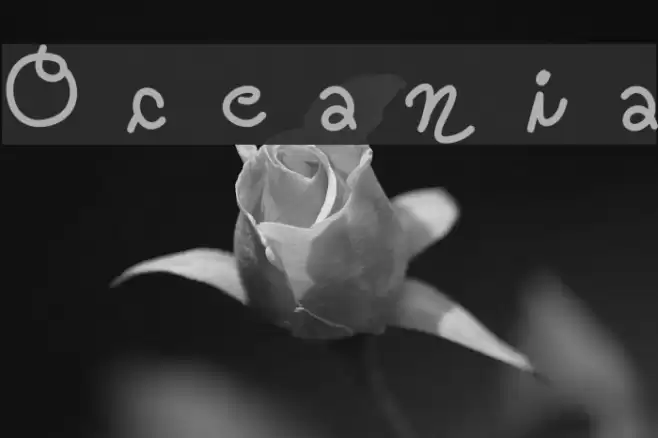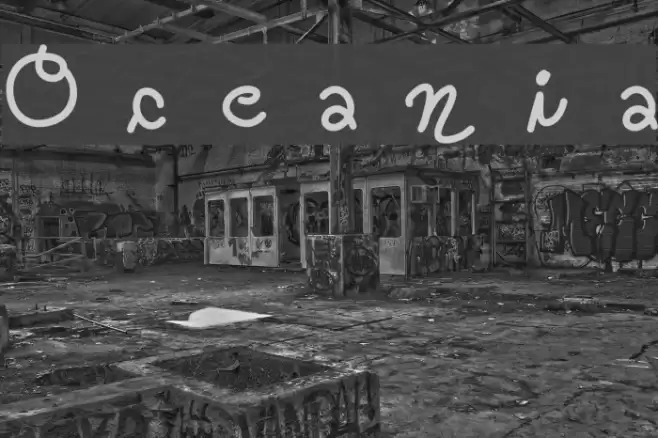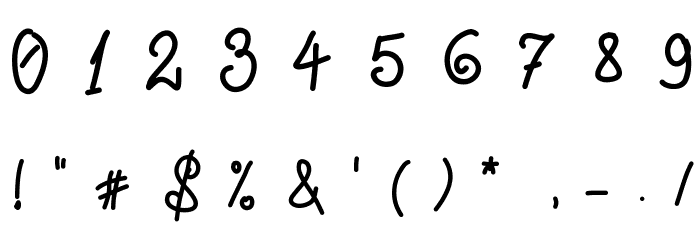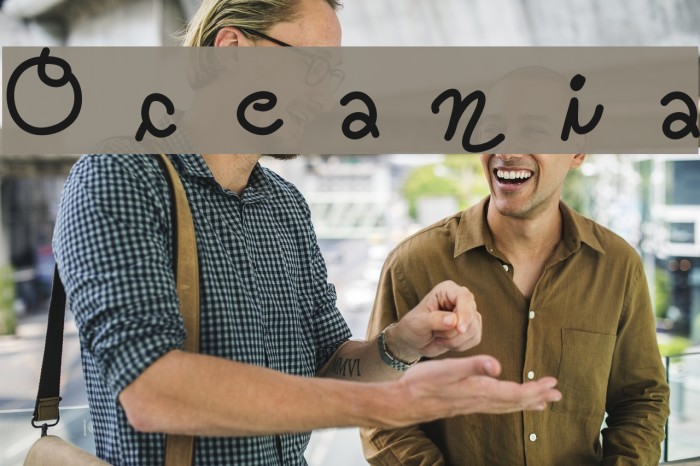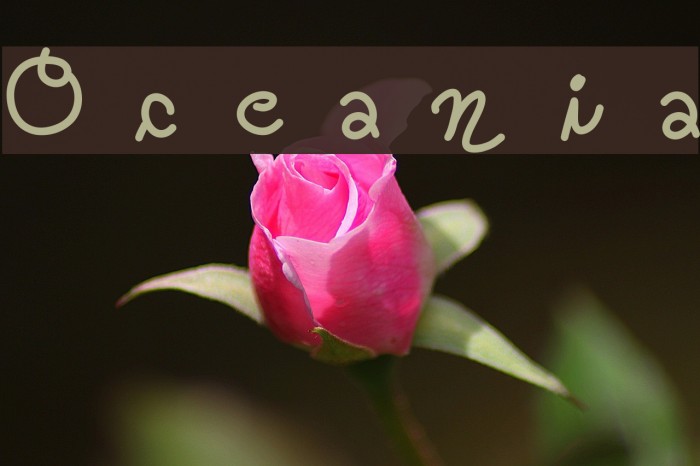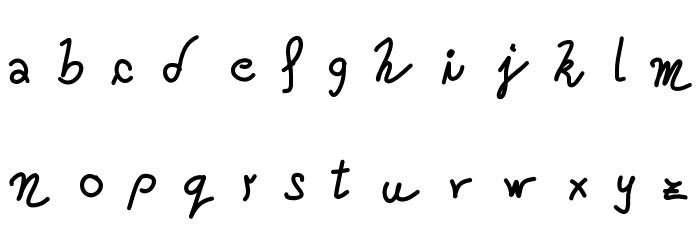
Oceania Font
Oceania Description
This font features a playful and whimsical script style, characterized by its flowing, cursive letters with a hand-drawn appearance. The uppercase letters are bold and slightly exaggerated, giving them a unique flair, while the lowercase letters maintain a consistent, smooth flow. The numerals are distinct and easy to read, with a slight tilt that adds to the overall charm. Special characters are creatively designed, maintaining the font's playful essence. The strokes are moderately thick, providing a good balance between readability and artistic expression.
A playful, whimsical script font with a hand-drawn appearance from Handwritten fonts.
- Proposed Projects: Ideal for greeting cards, invitations, children's books, and playful branding projects.
- Use Case: Logos, Headlines, Invitations